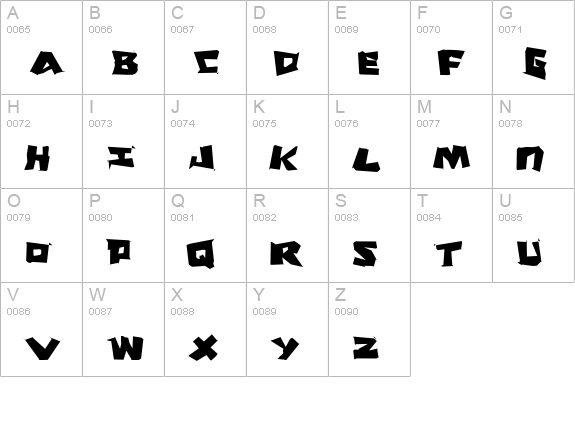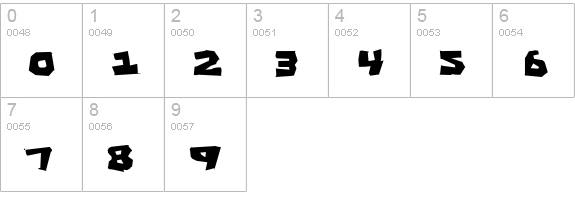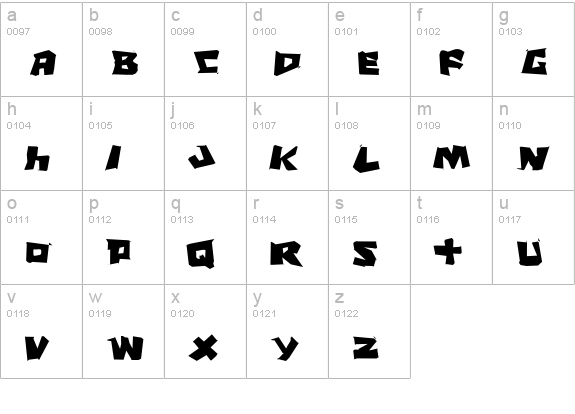
Cro-Magnum Jagged Font Details
Cro-Magnum Jagged font is a bold and striking typeface that exudes a primitive and rugged aesthetic. Its sharp edges and jagged lines give it a unique and powerful presence, making it perfect for creating eye-catching headlines and attention-grabbing designs. This font is freely available to download at FontsMarket.com, allowing you to easily incorporate its edgy style into your projects without any cost. Whether you're looking to add a touch of raw energy to your posters, banners, or social media graphics, Cro-Magnum Jagged font is sure to make a statement and leave a lasting impression. Let your creativity run wild with this distinctive and dynamic typeface that is as fierce as it is versatile.